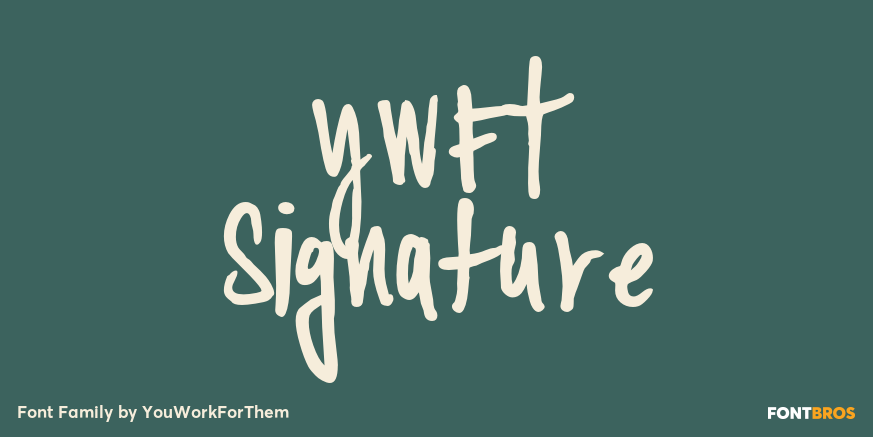
YWFT Signature
About YWFT Signature
Need to scribble some things with a Sharpie…on a billboard? 40 feet high? YWFT Signature has you covered. YWFT Signature was meticulously crafted as a custom handwriting typeface for use at both small and very large point sizes. Originally created in…